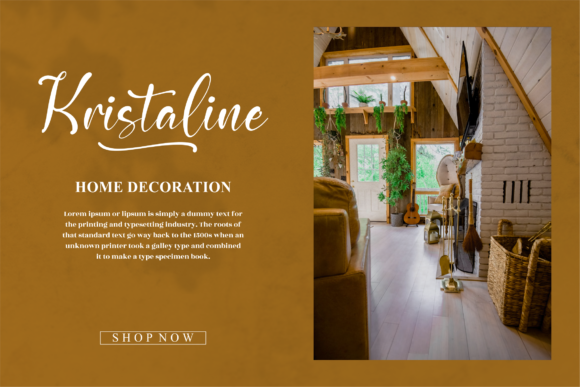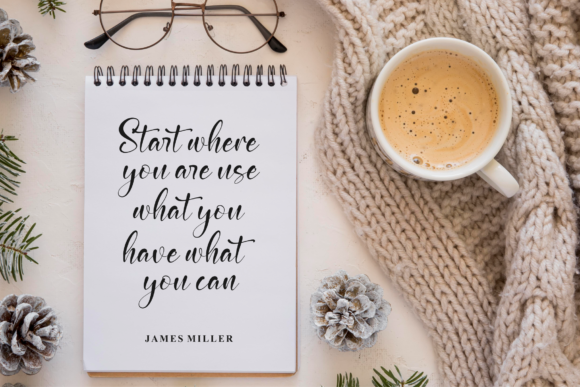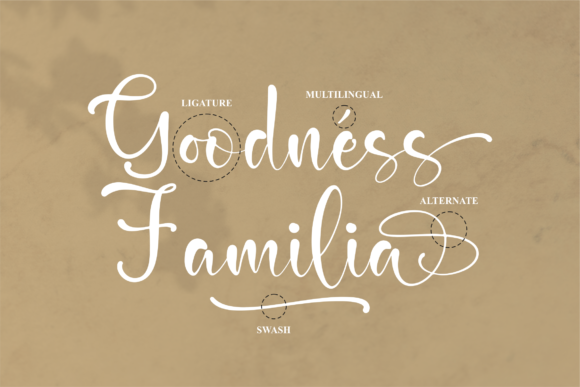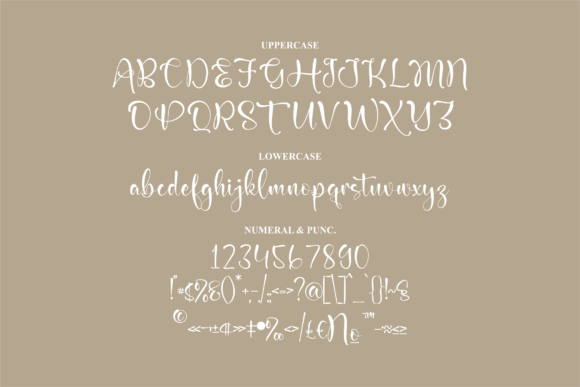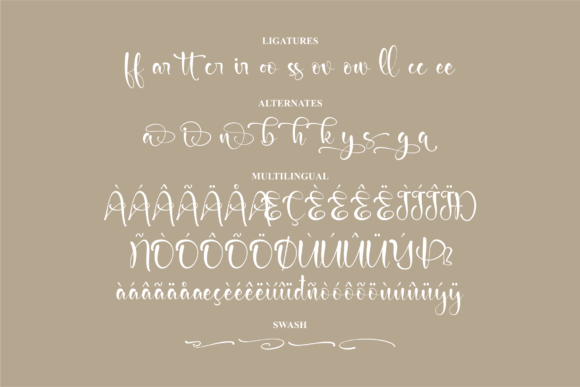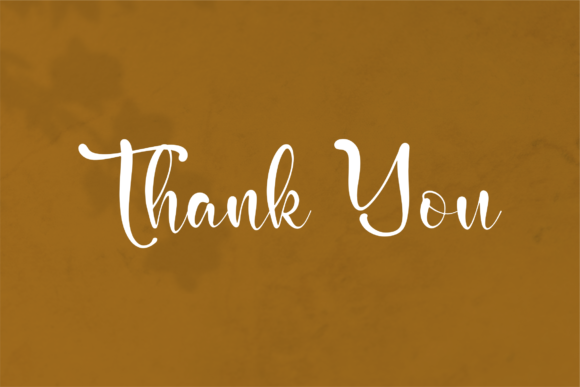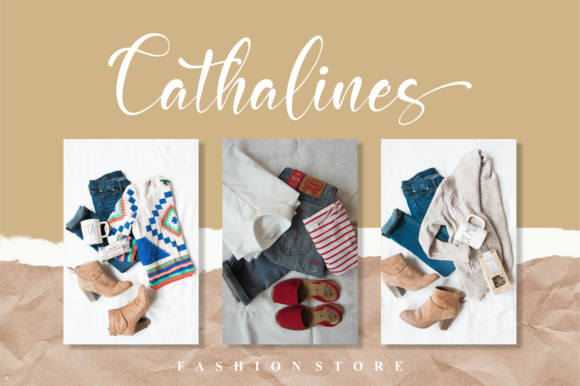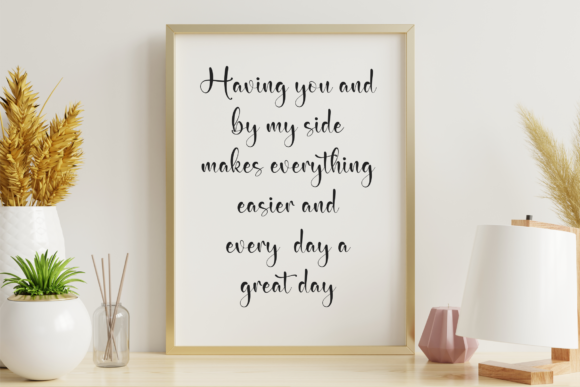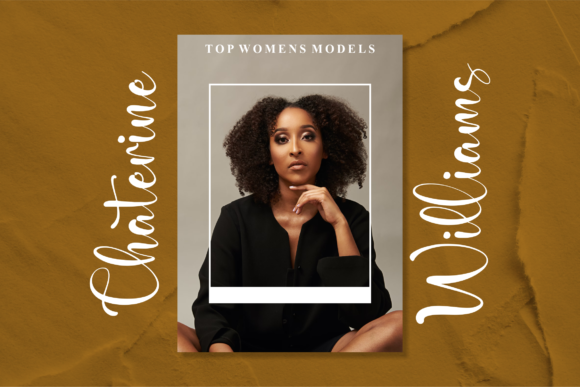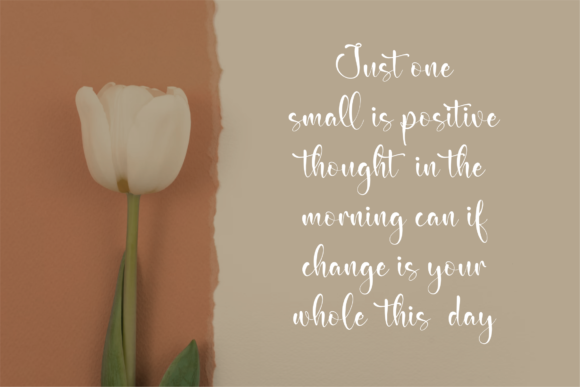
Mainches Cantika Font
About Mainches Cantika Font
Mainches Cantika is a captivating and graceful script font that effortlessly blends style and delicacy. Its refined design and elegant strokes make it a perfect choice for a wide array of creative projects. This font has been meticulously crafted to meet the demands of various design contexts, from logos and branding projects to labels, photography watermarks, and special events.
With its charming and dainty appearance, Mainches Cantika adds a touch of sophistication to any design it graces. Its smooth lines and well-balanced characters create a harmonious flow that captures attention and exudes a sense of grace. Whether you’re working on wedding invitations, social media graphics, or packaging, this font’s versatility allows it to shine in numerous applications.
One of the standout features of Mainches Cantika is its extensive range of glyphs and swashes. These additional elements are easily accessible thanks to the font’s PUA encoding, enabling you to add decorative flourishes, ligatures, and intricate details to your designs. This versatility empowers you to create customized and visually engaging compositions that stand out and leave a lasting impression.
Mainches Cantika’s timeless aesthetic ensures that it remains relevant and appealing across various design trends and styles. Its adaptability makes it a valuable asset in your design toolkit, capable of enhancing your projects with a touch of elegance and a dash of creativity.
Incorporating Mainches Cantika into your design work is an opportunity to elevate your creations and infuse them with a sense of refinement. Its stylish and dainty script, combined with its easy-to-access glyphs and swashes, make it a fantastic choice for those seeking to add a touch of sophistication to their projects.
Overall, Mainches Cantika is more than just a font – it’s a versatile design tool that empowers you to transform your ideas into stunning visuals. Its ability to enhance the beauty of logos, branding, labels, and more makes it a delightful and essential addition to any designer’s repertoire.